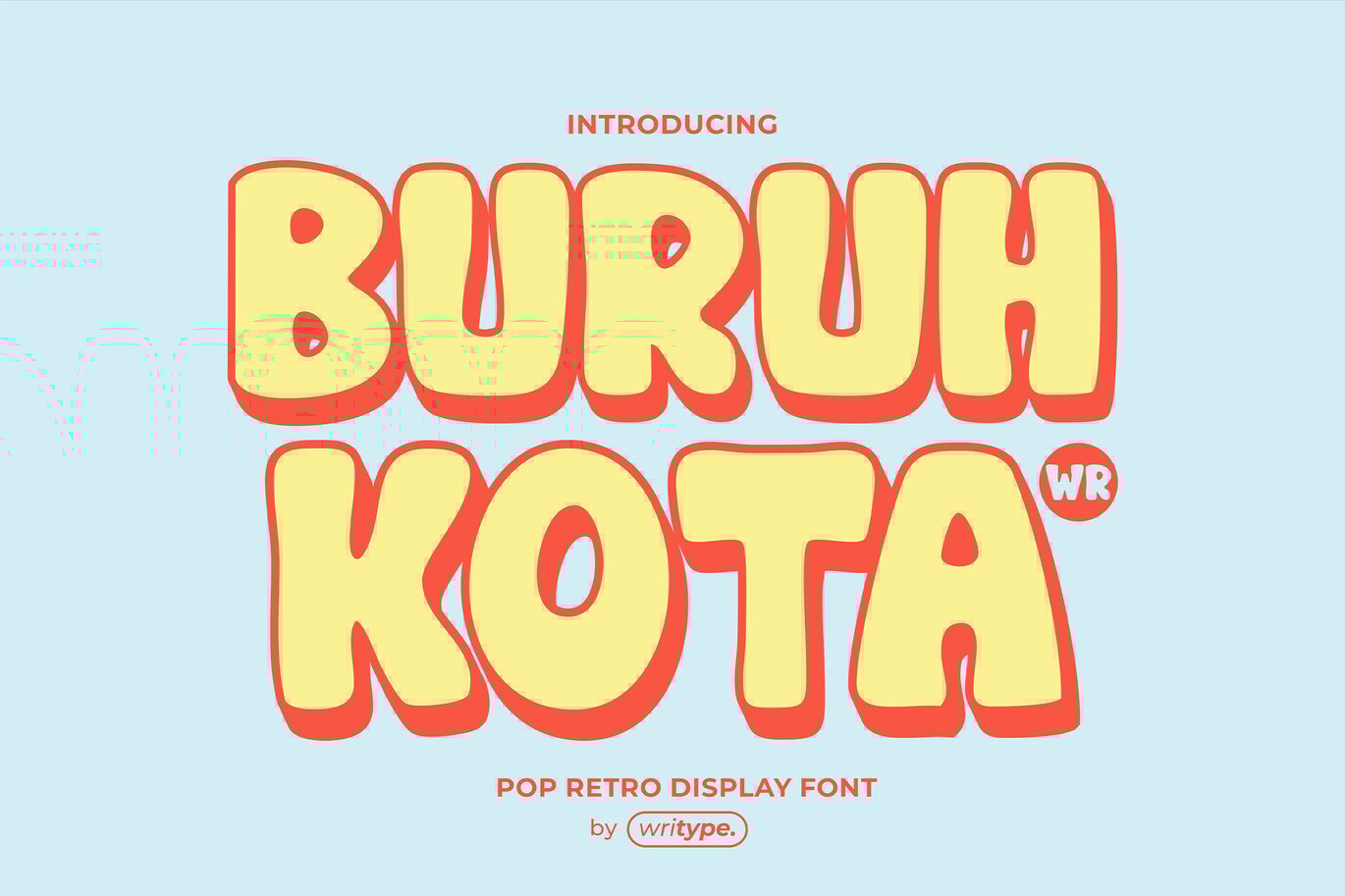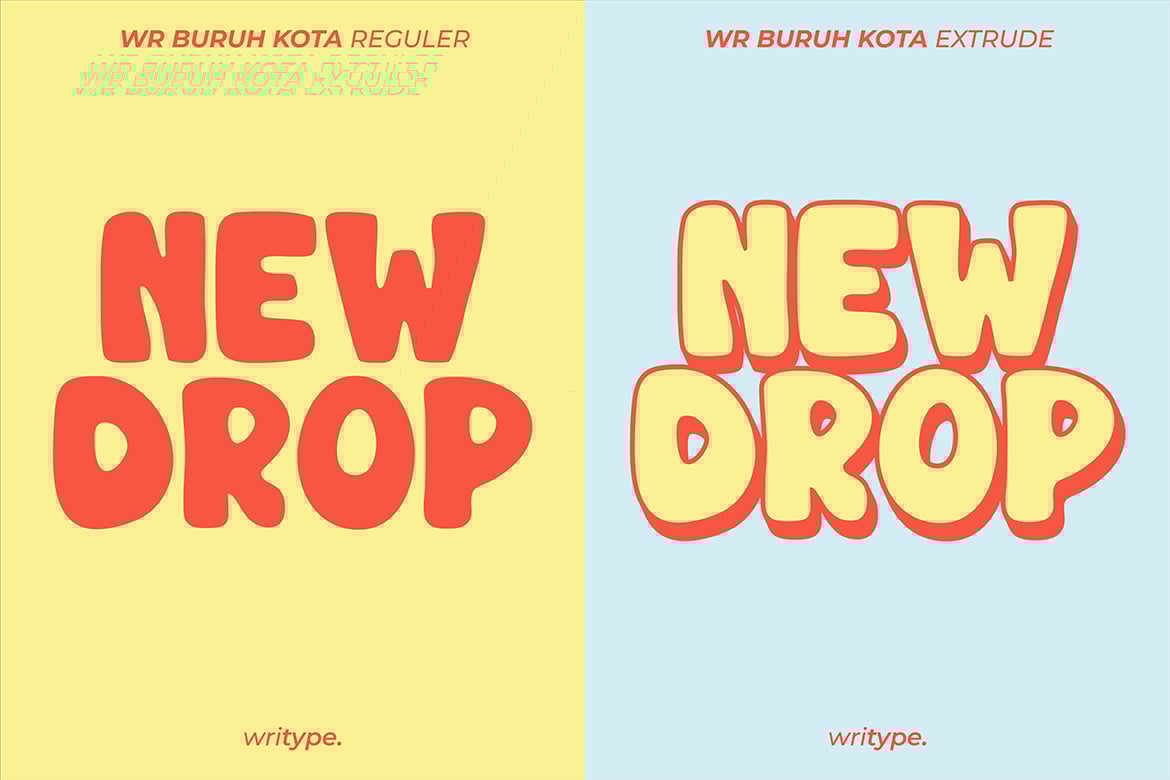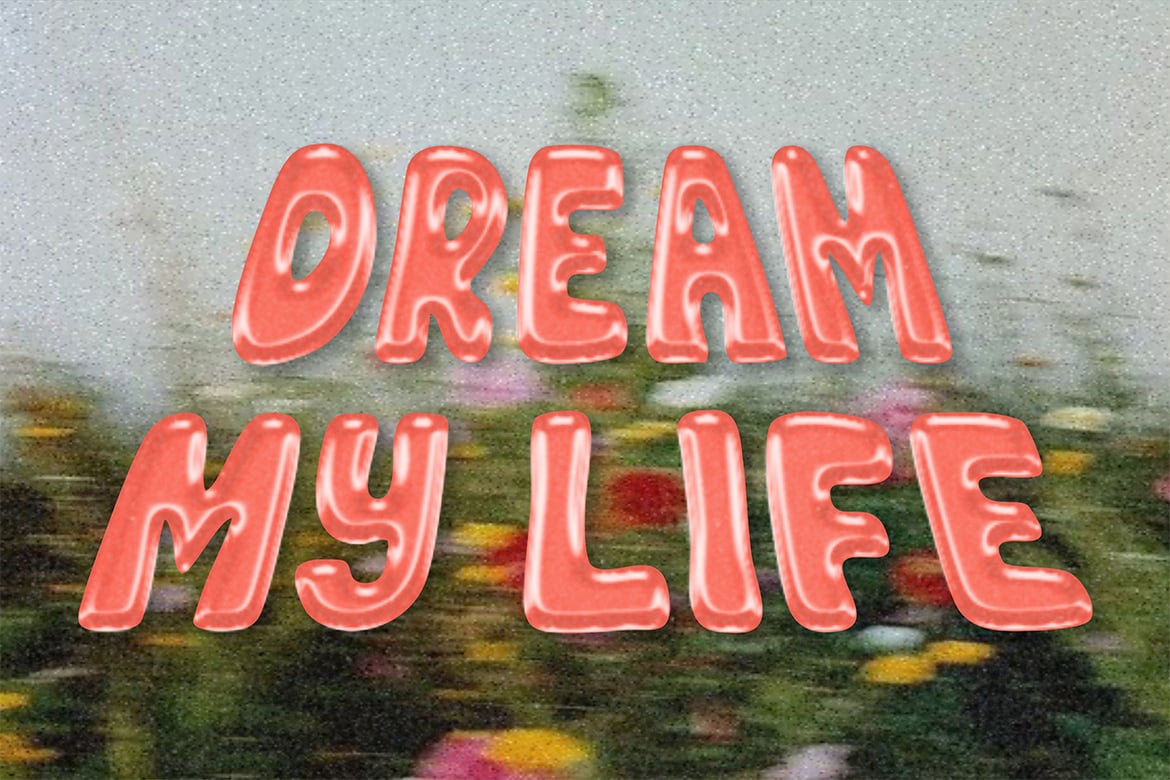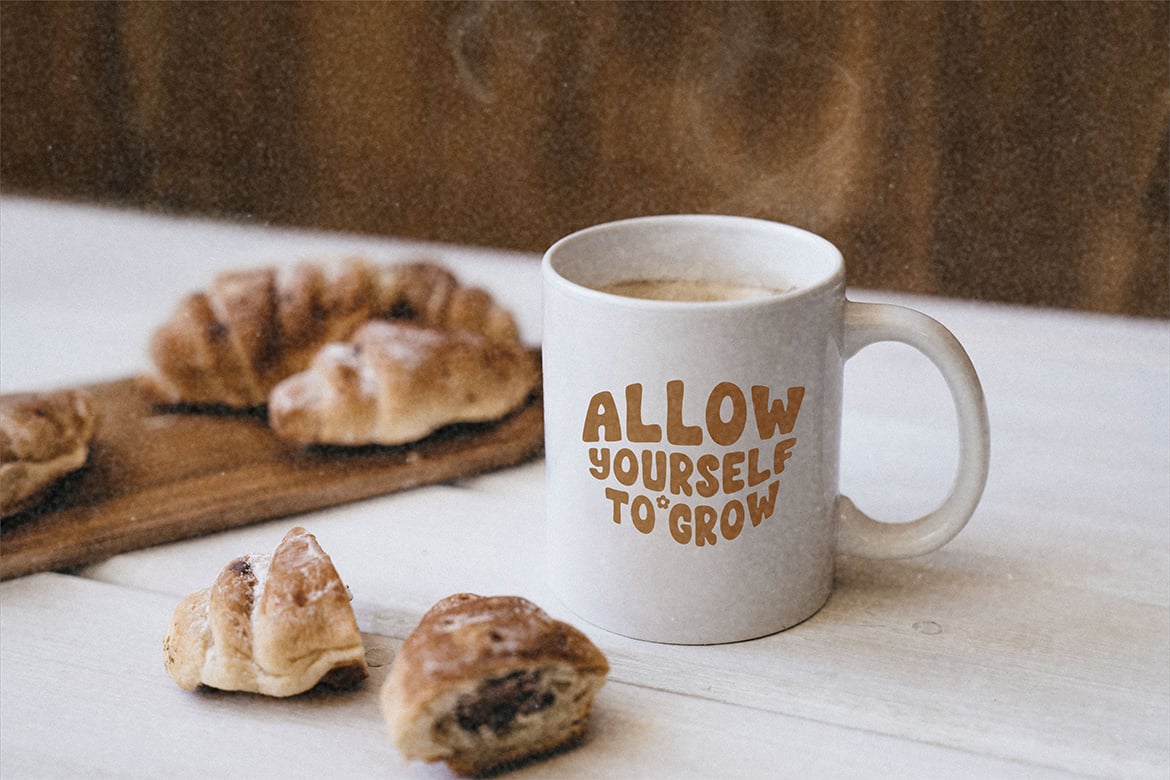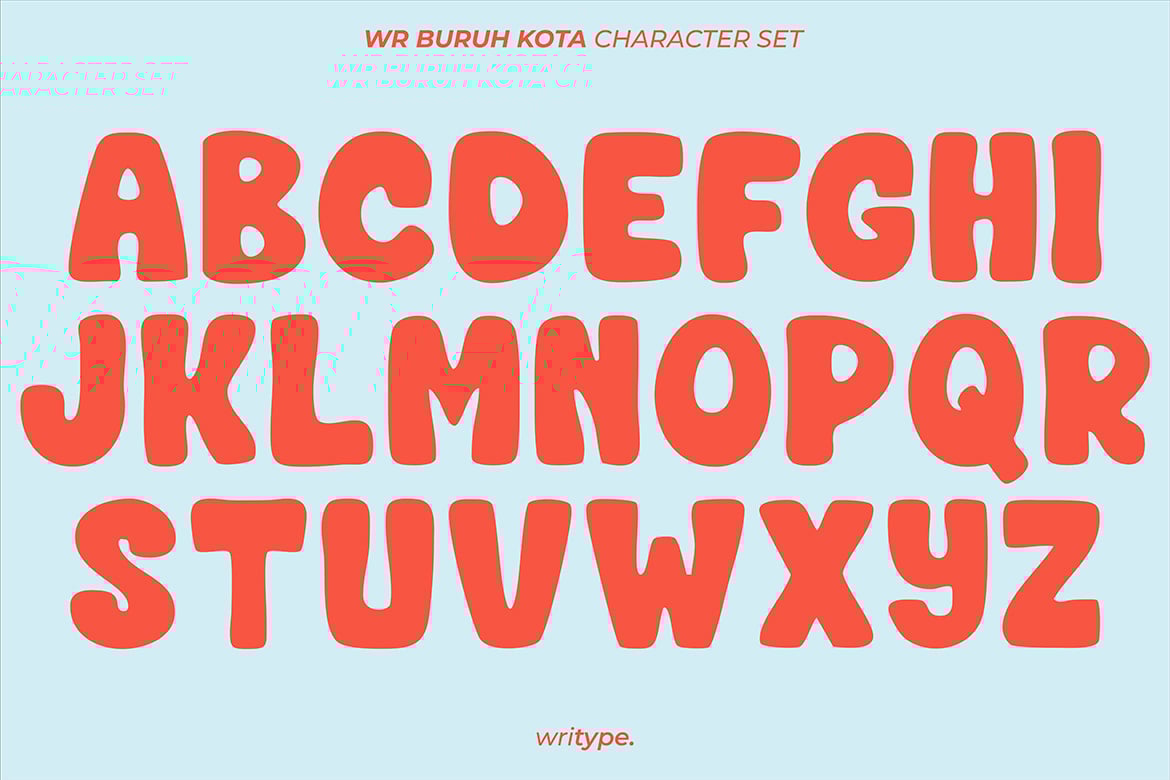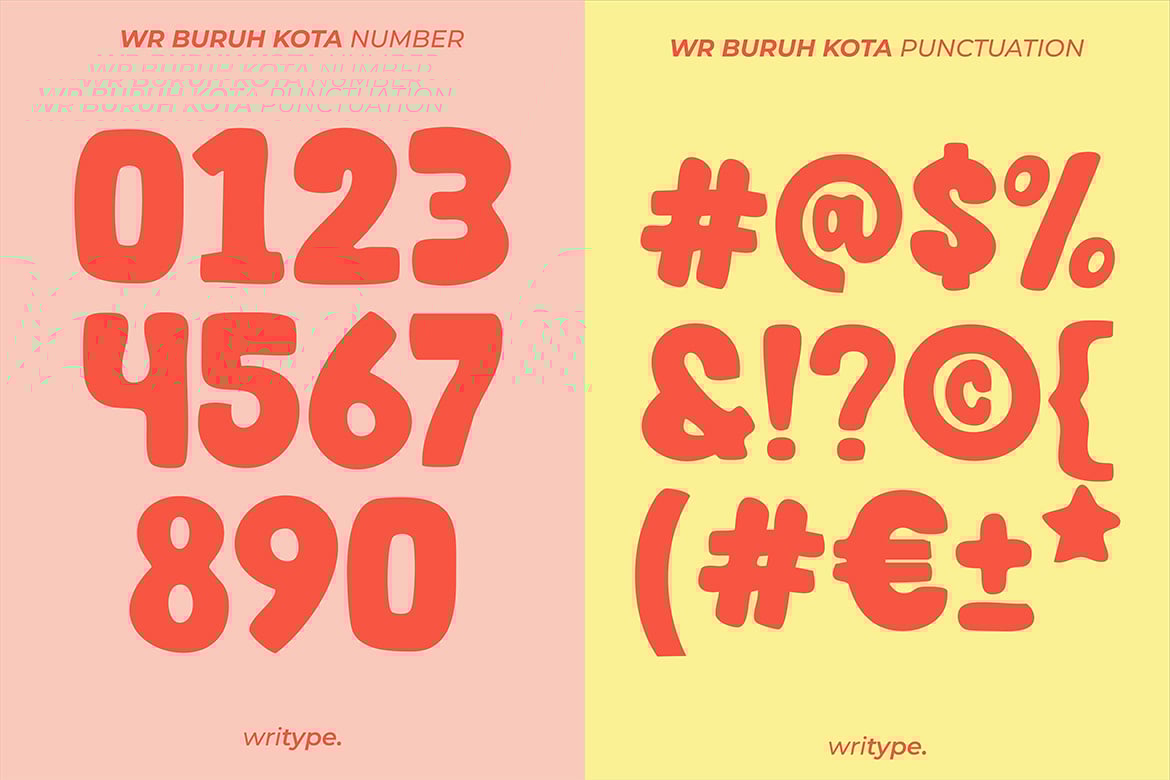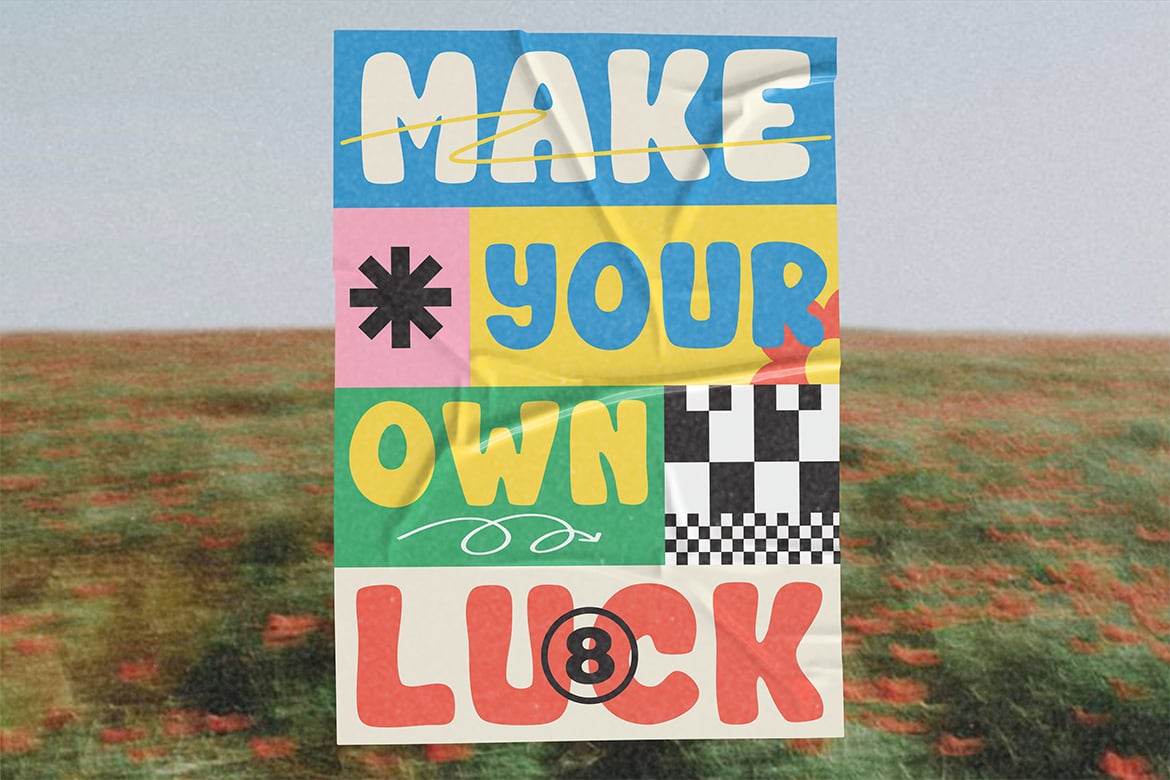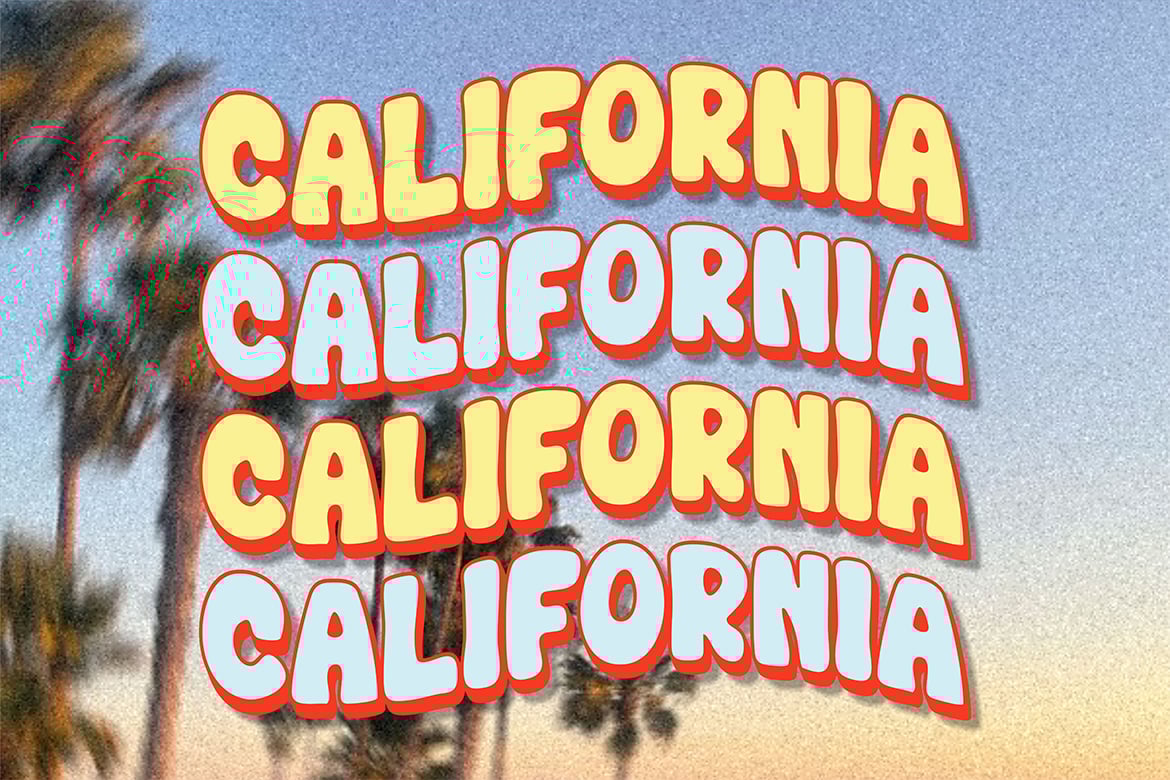
Buruh Kota – Retro Funky Font
WR Buruh Kota – Retro Funky Font by WriType
WR Buruh Kota is a bold display font inspired by urban grit and industrial strength. Available in two styles—Regular and Extrude—it offers versatility for dynamic designs. Perfect for posters, branding, packaging, and statement pieces that demand attention.